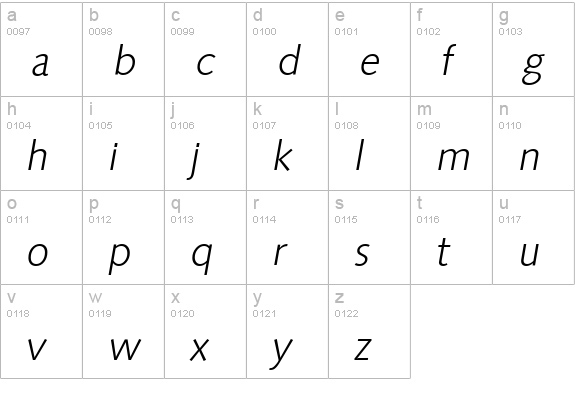
SaxonySerial-Light-Italic is a refined, elegant, italic variant in the SaxonySerial typeface family \xE2\x80\x94 well suited to elegant body text, refined sub-headings, and luxury branding.
SaxonySerial-Light-Italic font is a sleek and elegant typeface that exudes sophistication and modernity. Its delicate slant and light weight give it a unique and stylish appearance, making it perfect for adding a touch of class to any design project. The soft curves and clean lines of this font make it both easy to read and visually appealing. What makes SaxonySerial-Light-Italic font even more enticing is that it is available for free download at FontsMarket.com. This means that you can easily access this high-quality typeface without having to spend a penny. Whether you are working on a personal project or a professional design, SaxonySerial-Light-Italic font is a versatile choice that will elevate your work to the next level. Download it today and see for yourself the impact this font can have on your designs.